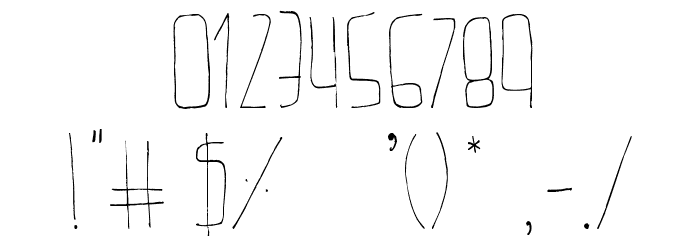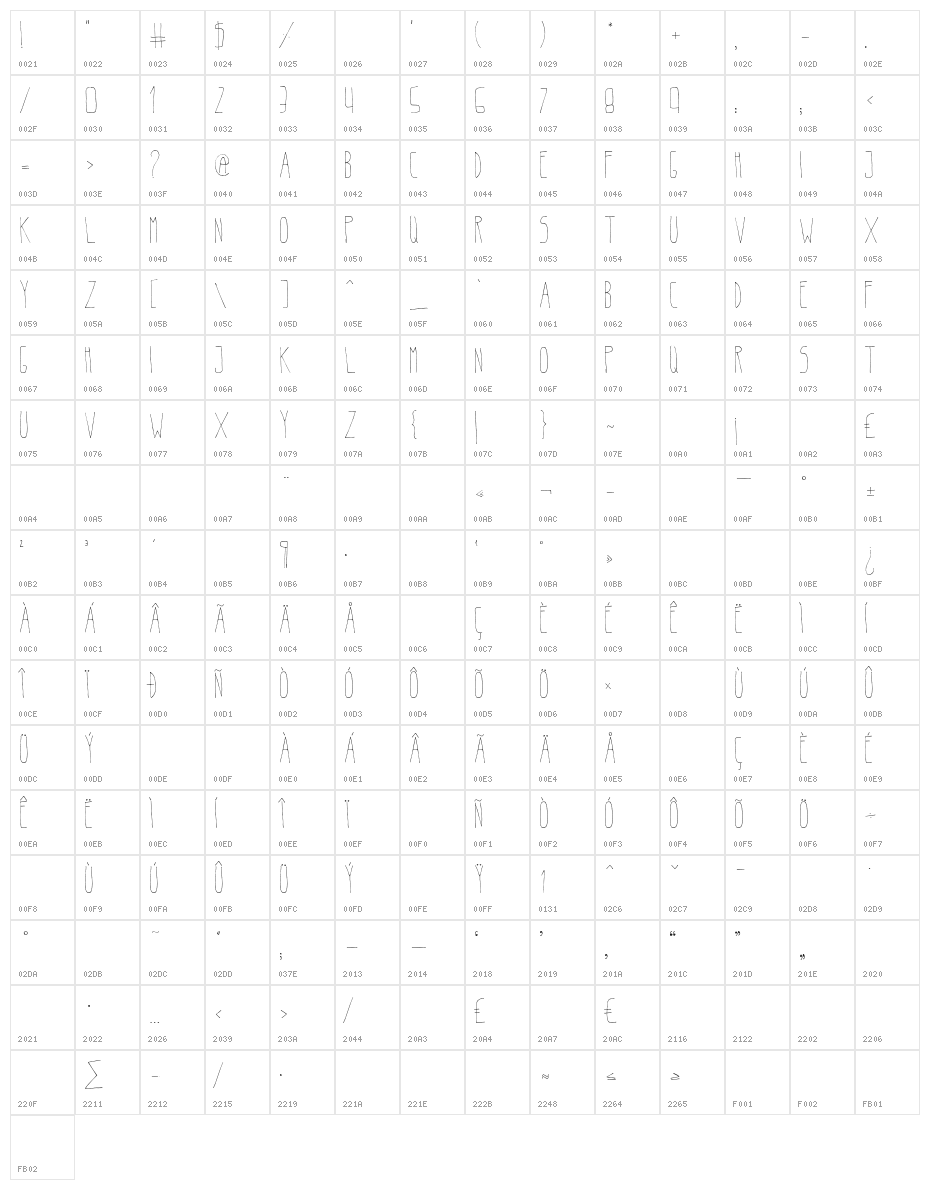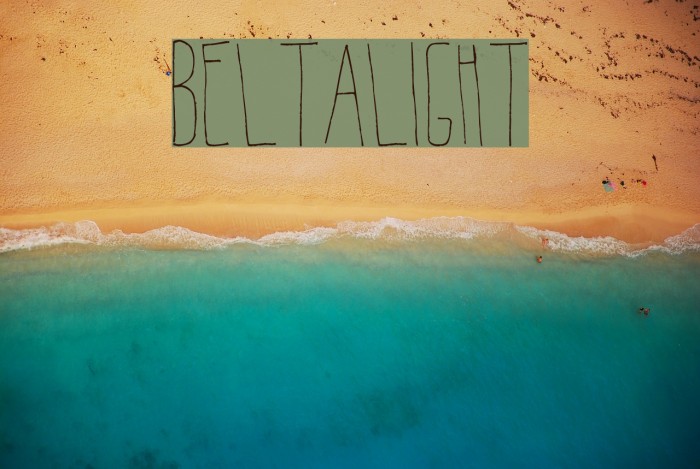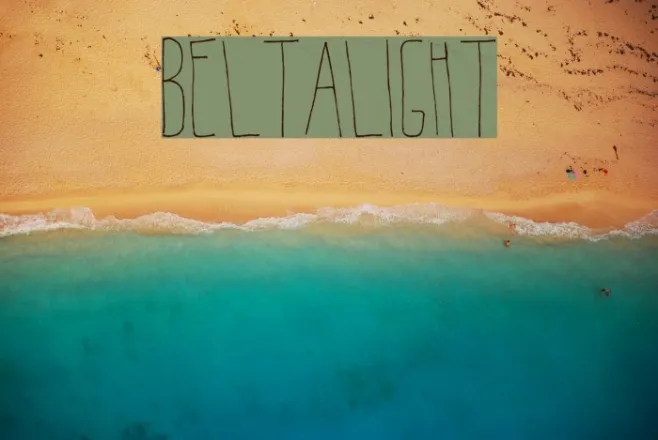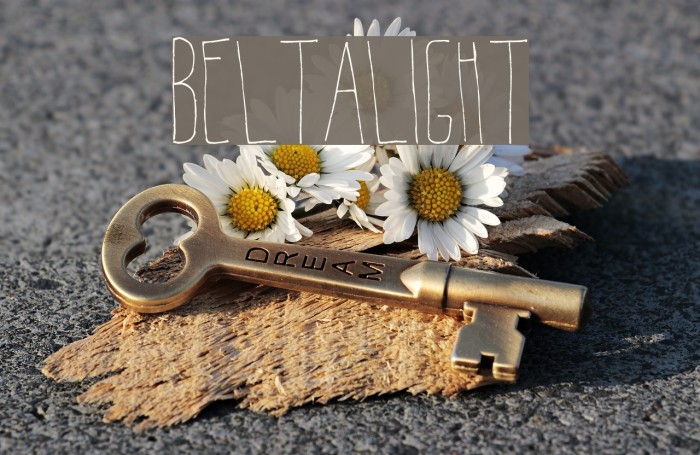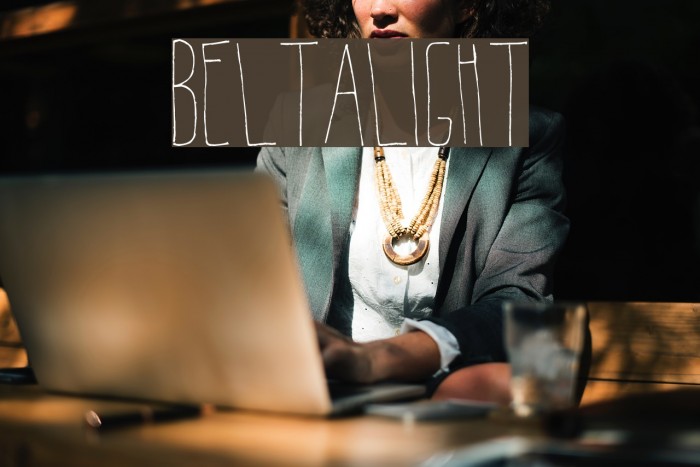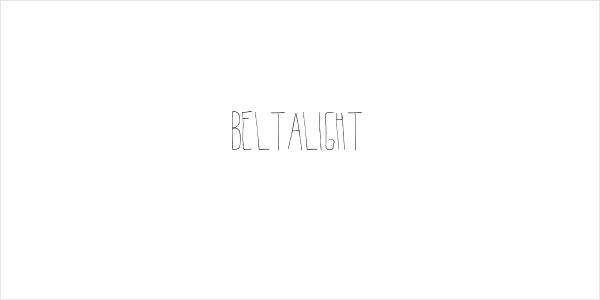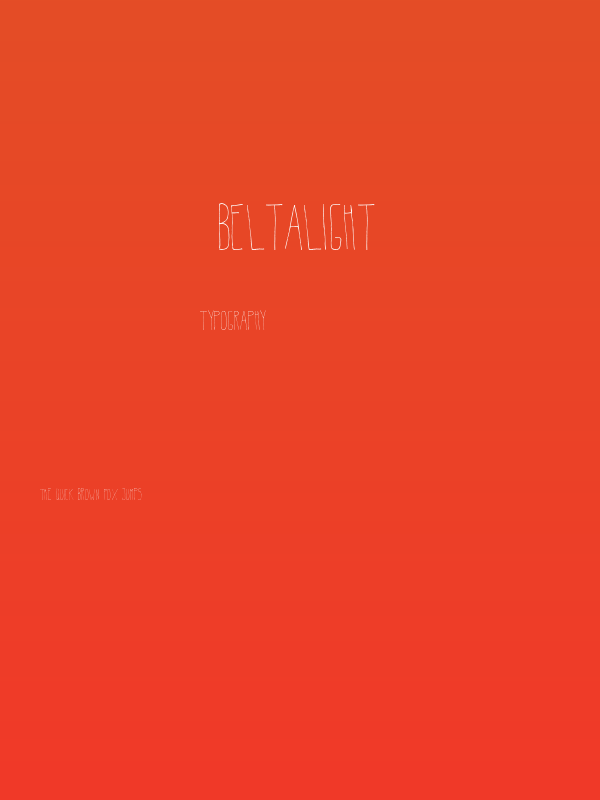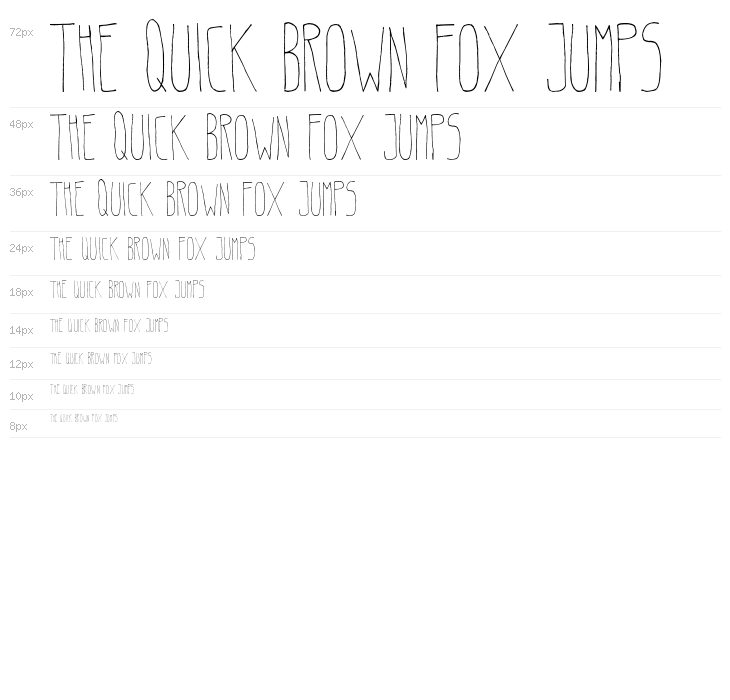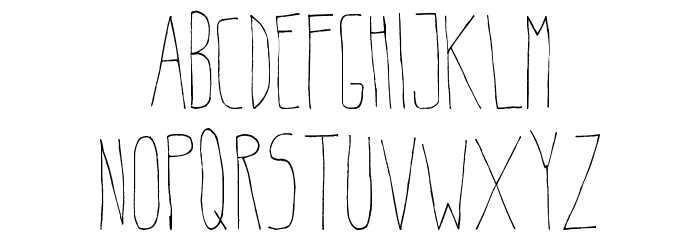
BeltaLight Font
BeltaLight Description
This font features a tall, narrow design with a hand-drawn aesthetic, characterized by its thin, elongated strokes and minimalistic style. The uppercase and lowercase letters maintain a consistent height, giving it a uniform appearance. The numerals and special characters follow the same slender and elongated form, enhancing its cohesive look. The overall design is simple yet elegant, making it suitable for projects that require a touch of sophistication and modernity. Its unique style can add a personal and artistic flair to any design.